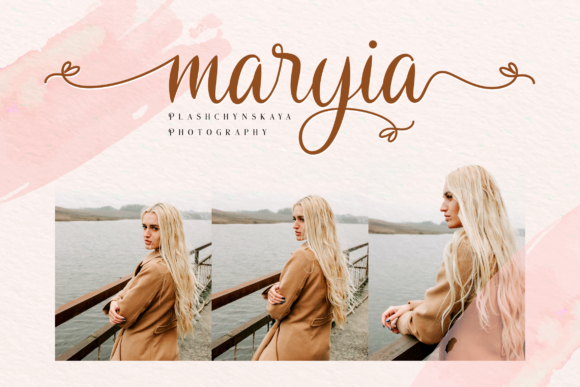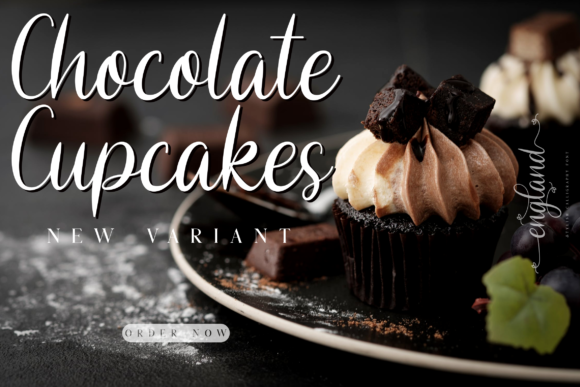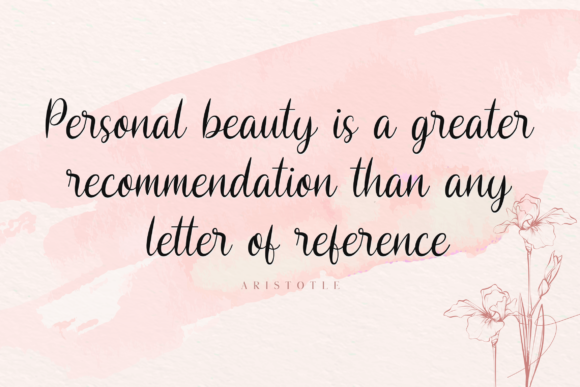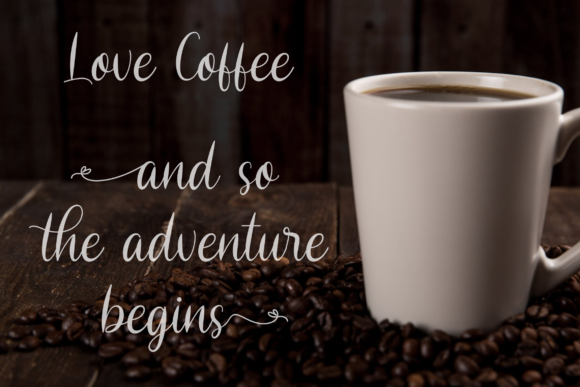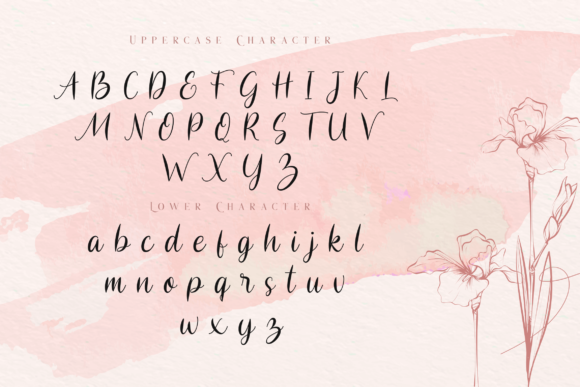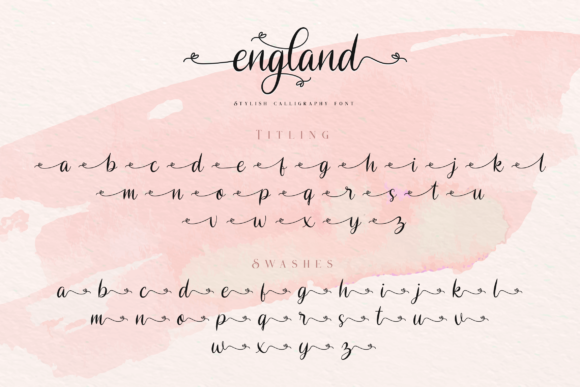
The Magical England Font: A Timeless Elegance for Your Designs
Have you ever been in the middle of a design project, and suddenly, you’re stuck on finding the perfect font? I recall a recent experience where I was working on a branding project for a luxury client, and I just couldn’t find a font that screamed elegance and sophistication. That’s when I stumbled upon the England Font, and it was love at first sight! ✨
England is a beautifully crafted script font that exudes timeless elegance and authentic calligraphy. Its classic style is balanced with a friendly feel, making it perfect for creating original and outstanding designs. In this article, I’ll share my honest review of the England Font, provide a practical guide on how to use it, and explore similar fonts that you might love.
The Good: ✨
- ✅ Elegant and sophisticated design
- ✅ Features alternate glyphs and ligatures for added creativity
- ✅ Friendly feel that works well for a variety of design projects
The Not-So-Good: 🤔
- ⚠️ Limited use in very formal or traditional designs, as it may come across as too elegant or luxurious
- ⚠️ May require some experimentation to get the hang of using OpenType features and glyphs
The Story Behind England Font
The England Font was designed with the intention of creating a beautiful, elegant script font that captures the essence of traditional calligraphy. The designer aimed to create a font that’s both timeless and versatile, suitable for a wide range of design projects. While the exact story behind the font’s creation is unclear, it’s evident that the designer poured their heart and soul into crafting a truly unique and special font.
Q: What is the England Font, and what makes it special?
A: The England Font is a beautifully crafted script font that exudes timeless elegance and authentic calligraphy. Its special features include PUA encoding, alternate glyphs, and ligatures, making it perfect for creating original and outstanding designs.